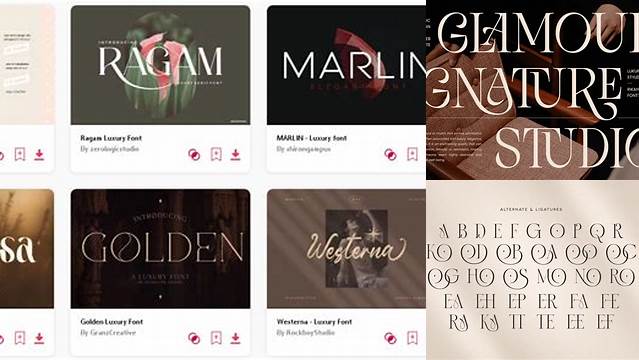
Elevate Your Designs: Luxury Fonts On Envato Elements
Hey guys! Are you looking to add a touch of elegance and sophistication to your design projects? Luxury fonts can be the secret ingredient to transforming your work from ordinary to extraordinary. And where better to find a treasure trove of these beauties than on Envato Elements? Let's dive into the world of luxury fonts and explore how Envato Elements can be your go-to resource.
What Makes a Font Luxurious?
Before we jump into where to find them, let's quickly chat about what actually makes a font feel luxurious. It's not just about the price tag, although sometimes premium fonts do come with that extra special touch! Generally, luxury fonts often feature elegant curves, fine lines, and a certain air of sophistication. They might draw inspiration from classic typography, calligraphy, or even modern minimalist styles. A truly luxurious font has that 'wow' factor, that feeling of quality and attention to detail that instantly elevates a design. When considering luxury fonts, think about the feeling they evoke. Do they feel exclusive? Refined? Timeless? These are the qualities that separate them from the everyday fonts we see all the time. Choosing a luxury font is about making a statement, conveying a message of quality and elegance.
H2: Exploring Serif Luxury Fonts on Envato Elements
Serif fonts, with their classic and traditional look, are a natural fit for luxury designs. Think of iconic logos like Vogue or Tiffany & Co. – serif fonts exude elegance and authority. On Envato Elements, you’ll find a fantastic selection of serif luxury fonts, from delicate and refined to bold and impactful. The beauty of serifs lies in their versatility. A well-chosen serif font can add a touch of sophistication to anything from invitations and stationery to websites and branding materials. When browsing Envato Elements, pay attention to the details of the serifs themselves. Are they sharp and angular, or soft and rounded? This will influence the overall feel of the font and how it interacts with your design. A strong serif font, for example, can project confidence and stability, while a more delicate serif font can evoke a sense of grace and refinement. Remember, the best serif luxury font is one that perfectly complements the message you’re trying to convey.
H2: Unveiling Sans-Serif Luxury Fonts on Envato Elements
Sans-serif fonts, known for their clean and modern aesthetic, can also be incredibly luxurious. Don't think sans-serif means boring! A well-designed sans-serif luxury font can be just as impactful as its serif counterpart, especially for brands that want to project a contemporary and sophisticated image. Envato Elements has a fantastic collection of sans-serif luxury fonts that range from sleek and minimalist to bold and geometric. The key to a luxurious sans-serif is often in the details – the spacing between letters, the weight of the strokes, and the overall balance of the typeface. A carefully crafted sans-serif can feel both modern and timeless, making it a versatile choice for a wide range of design projects. Think about brands like Chanel or Hermes, which often use sans-serif fonts to convey their understated elegance. So, don't overlook the power of a sans-serif when searching for luxury fonts on Envato Elements. You might be surprised at the level of sophistication these seemingly simple fonts can bring to your designs.
H2: Discovering Script & Calligraphy Luxury Fonts on Envato Elements
For a truly elegant and personalized touch, script and calligraphy luxury fonts are hard to beat. These fonts mimic the fluidity of handwriting, adding a sense of artistry and refinement to your designs. Envato Elements boasts a stunning array of script and calligraphy luxury fonts, from delicate and flowing to bold and dramatic. These fonts are perfect for projects that call for a touch of romance, such as wedding invitations, thank you cards, or even branding for high-end beauty products. When choosing a script or calligraphy font, consider the readability. While they are beautiful, some scripts can be difficult to read if used in large blocks of text. It’s often best to use them for headlines, logos, or other short phrases where their elegance can really shine. A beautiful script or calligraphy luxury font can instantly elevate a design, adding a personal and handcrafted feel that’s hard to replicate with other font styles. Explore the diverse options on Envato Elements and find the perfect script to match your project's vibe.
H2: Spotlight on Display Luxury Fonts on Envato Elements
Need a font that really stands out? Display luxury fonts are designed to grab attention and make a statement. These fonts often feature unique and eye-catching designs, making them perfect for headlines, posters, and other projects where you want to make a big impact. Envato Elements offers a wide variety of display luxury fonts, from bold and geometric to ornate and decorative. When choosing a display font, consider the overall tone of your design. A bold and modern display font might be perfect for a high-end tech brand, while a more ornate font might be better suited for a vintage-inspired project. The key with display fonts is to use them sparingly. Because they are so attention-grabbing, they can easily overwhelm a design if overused. However, when used effectively, a well-chosen display font can be the perfect finishing touch, adding a touch of luxury and personality to your work. Dive into the display font collection on Envato Elements and discover fonts that command attention.
H2: Best Practices for Using Luxury Fonts
Okay, so you've found the perfect luxury font on Envato Elements. Now what? Using luxury fonts effectively is just as important as choosing the right one. Here are a few best practices to keep in mind: Pairing is Key: Don't be afraid to mix and match fonts, but do it thoughtfully. A classic pairing is a serif headline with a sans-serif body text. Legibility Matters: While luxury fonts are beautiful, they need to be readable. Avoid using overly ornate fonts for large blocks of text. Consider the Context: The font you choose should align with the overall message and aesthetic of your design. Less is More: Don't overcrowd your design with too many different fonts. Stick to a maximum of two or three. Kerning and Leading: Pay attention to the spacing between letters (kerning) and lines (leading). Proper spacing can make a huge difference in the overall look and feel of your font. By following these tips, you can ensure that your luxury fonts enhance your designs and convey the message you intend.
H2: Finding Font Pairings for Luxury Fonts
One of the trickiest parts of using luxury fonts is finding the perfect pairings. A great font pairing can elevate your design, while a poor pairing can make it feel disjointed and unprofessional. Luckily, Envato Elements can help! Many of the font descriptions include suggestions for complementary fonts. This is a great starting point for finding harmonious pairings. In general, it's a good idea to pair a more decorative luxury font with a simpler, more readable font for body text. For example, a script headline might pair well with a clean sans-serif body. Or, a bold serif headline might work well with a lighter, more delicate serif for the body. The goal is to create a visual hierarchy and ensure that your design is both beautiful and easy to read. Don't be afraid to experiment with different pairings until you find one that feels just right. Envato Elements' vast library makes it easy to try out different combinations and discover unexpected gems.
H2: Luxury Fonts for Branding
When it comes to branding, your font choices speak volumes. A luxury font can instantly elevate your brand's image, conveying a sense of quality, sophistication, and attention to detail. Think of the logos of luxury brands – they often use elegant serifs, refined sans-serifs, or beautiful scripts to communicate their brand identity. When choosing a luxury font for branding, consider your target audience and the overall message you want to convey. A classic serif might be perfect for a traditional brand, while a modern sans-serif might be a better fit for a more contemporary company. It's also important to consider the versatility of the font. Will it work well across different applications, from your website and business cards to social media graphics and packaging? Envato Elements offers a wide range of luxury fonts that are perfect for branding, so you can find the perfect typeface to represent your brand's unique personality and values.
H3: The Future of Luxury Fonts on Envato Elements
Envato Elements is constantly expanding its library of luxury fonts, ensuring that designers have access to the latest and greatest typefaces. As design trends evolve, Envato Elements is committed to providing a diverse and high-quality collection of luxury fonts to meet the needs of its users. In the future, we can expect to see even more innovative and unique luxury fonts added to the Envato Elements library, including variable fonts, color fonts, and fonts with advanced typographic features. Staying up-to-date with the latest font trends and exploring the new additions to Envato Elements will help you create cutting-edge and visually stunning designs. Envato Elements is the go-to resource for designers looking to elevate their work with luxury fonts.